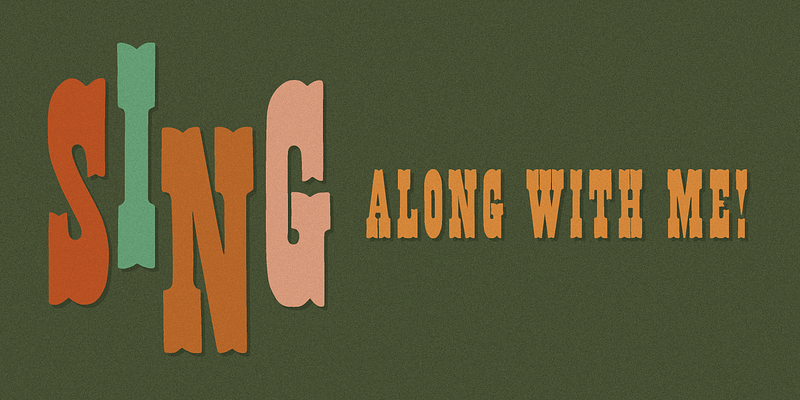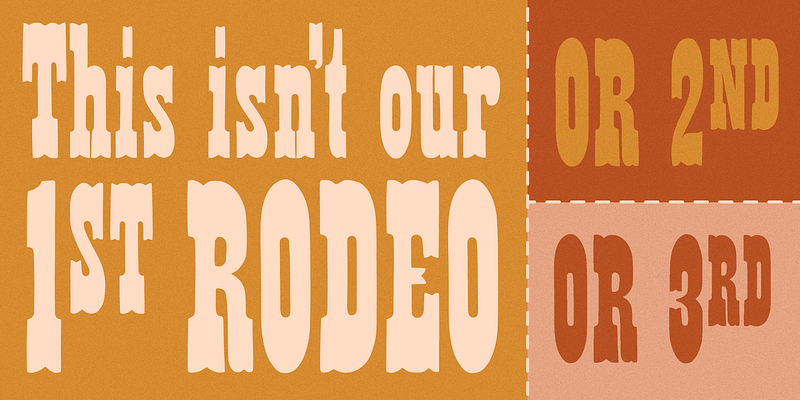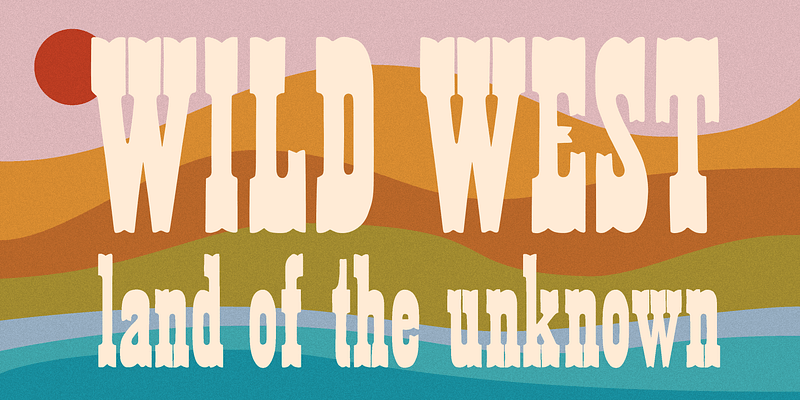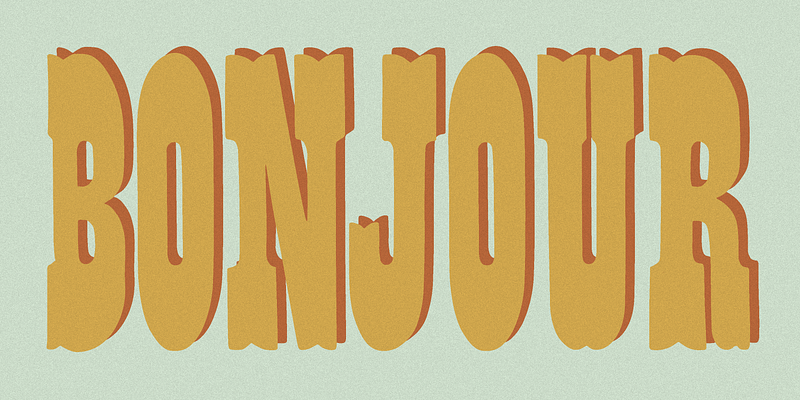
Wood Type Revival is discovering and preserving historic wood type, faithfully converting it into digital fonts for modern designers. All of the Wood Type Revival fonts are created from hand-set letterpress prints of the original 19th century wood type. Wood Type Revival is the result of the successful Kickstarter project of letterpress printers and Bearded designers Matt Griffin and Matt Braun. Together they are working to enrich the modern typographic landscape by reintroducing forgotten faces to a digital world.